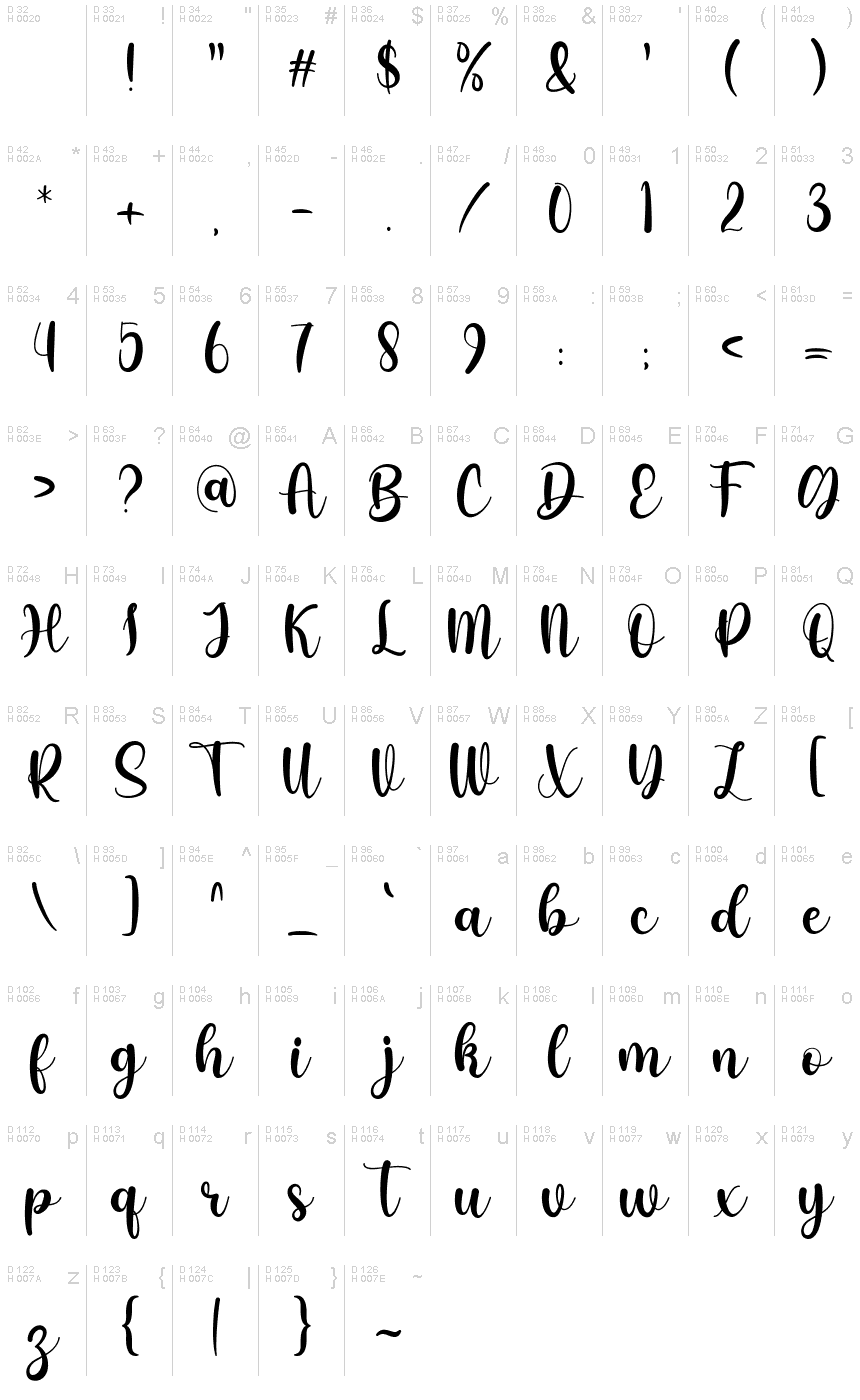
Thankful Santa
Thankful Santa is a beautiful light calligraphy font designed by Letter Art Studio. This elegant font is perfect for creating invitations, cards, logos, and other projects requiring a touch of classic elegance.